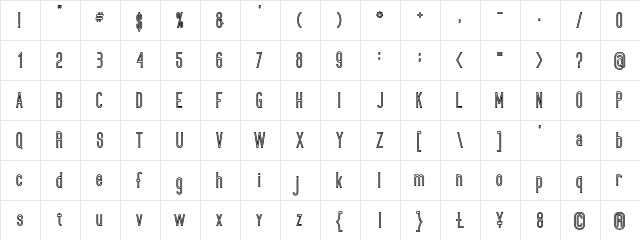
ultimatum bold line Regular
| Foundry | cruzine |
| Designer | cruzine |
Design Context for ultimatum bold line Typeface
ultimatum bold line is a composed and adaptable typeface that performs quietly and consistently across a wide range of design contexts. The heavy weight commands attention and anchors typographic hierarchies.